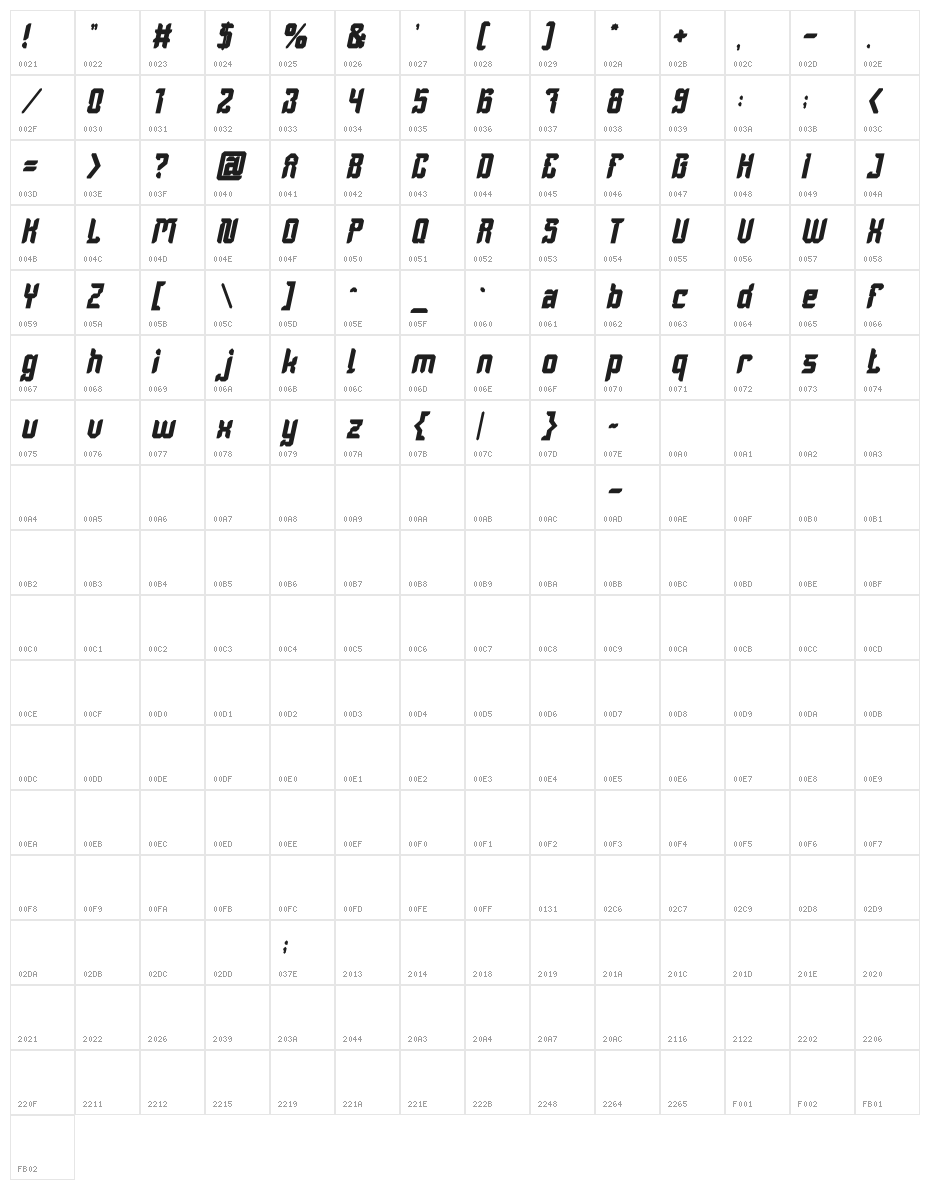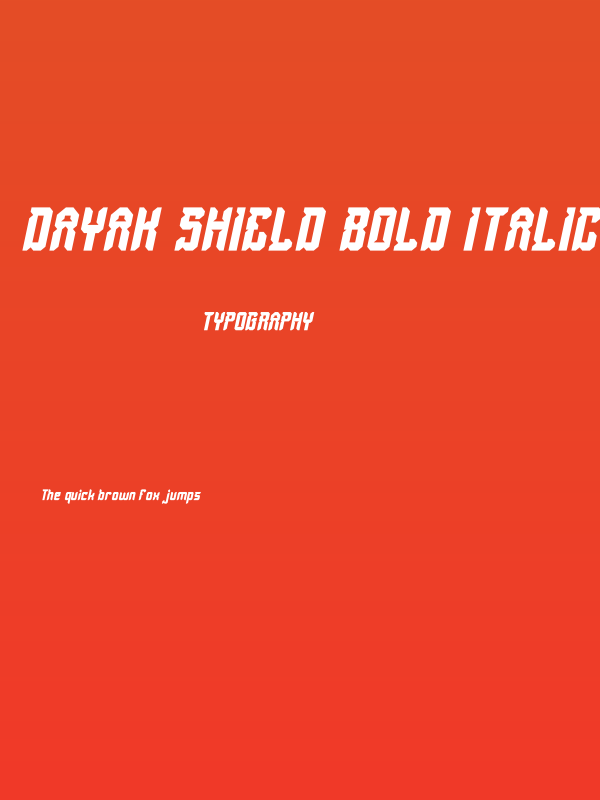
Dayak Shield Bold Italic Font
Dayak Shield Bold Italic Description
This font features a bold and italicized style with a distinctive, angular design. The characters are sharply defined with a geometric flair, giving them a strong and assertive presence. The uppercase and lowercase letters maintain a consistent slant, enhancing the italic effect. Numbers and special characters follow the same bold, angular aesthetic, ensuring uniformity across all glyphs. The font's unique style makes it stand out, ideal for projects that require a modern and edgy look.
Proposed ProjectsIdeal for branding, posters, and headlines that require a modern, edgy appearance.